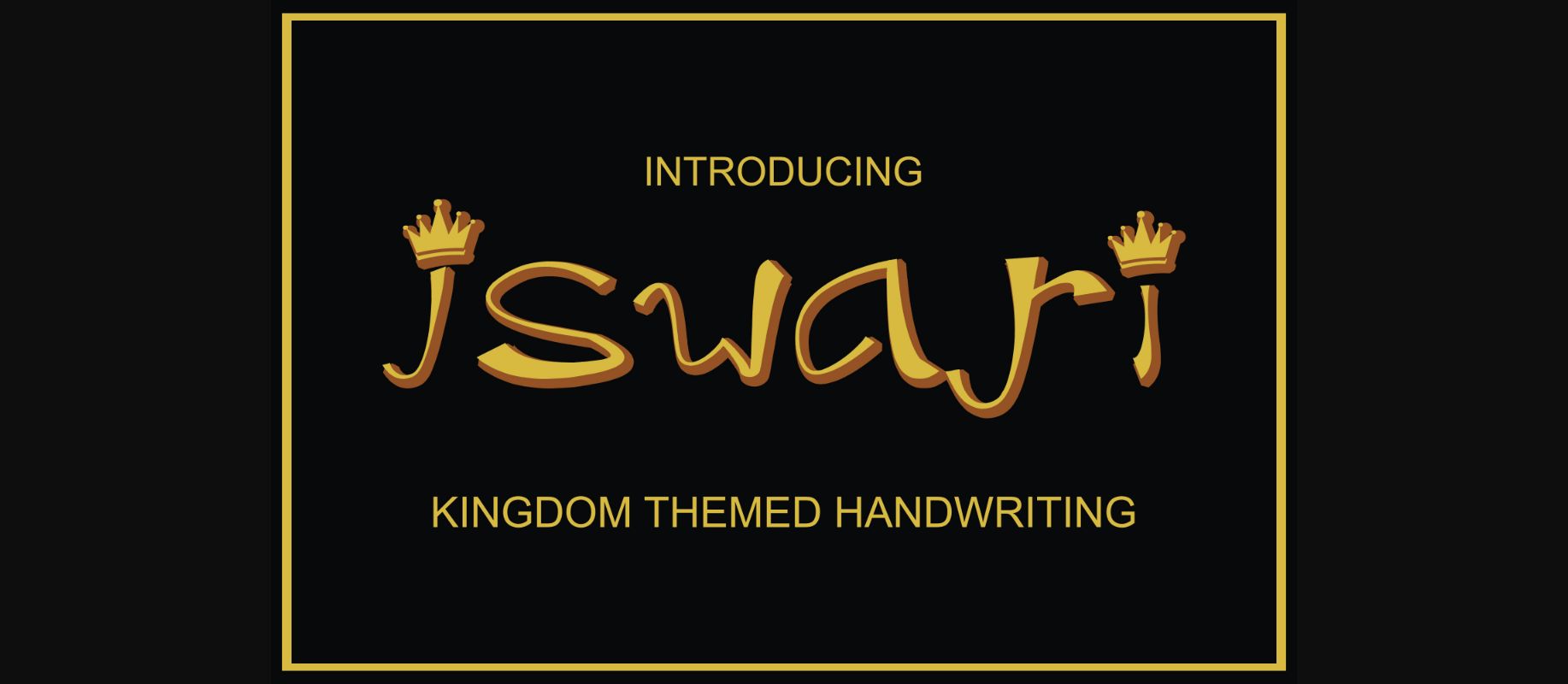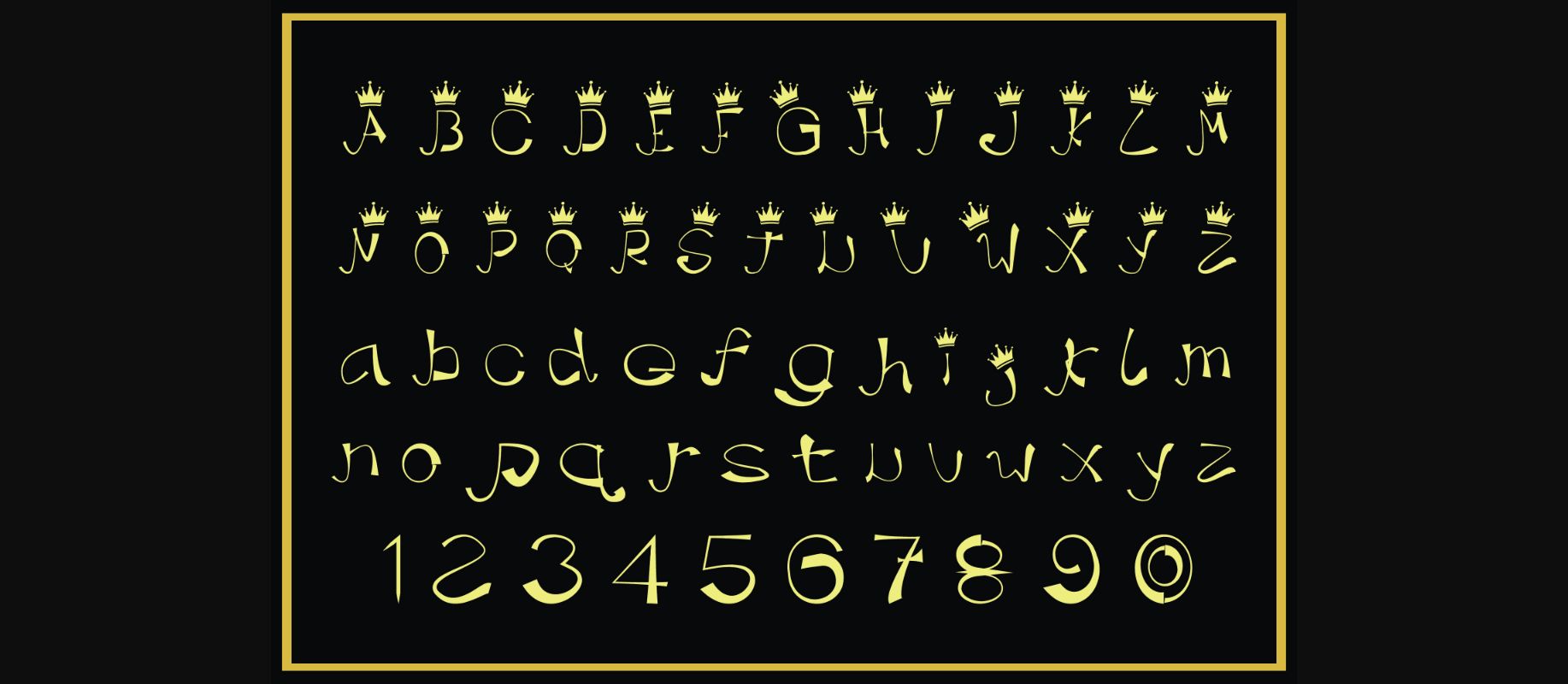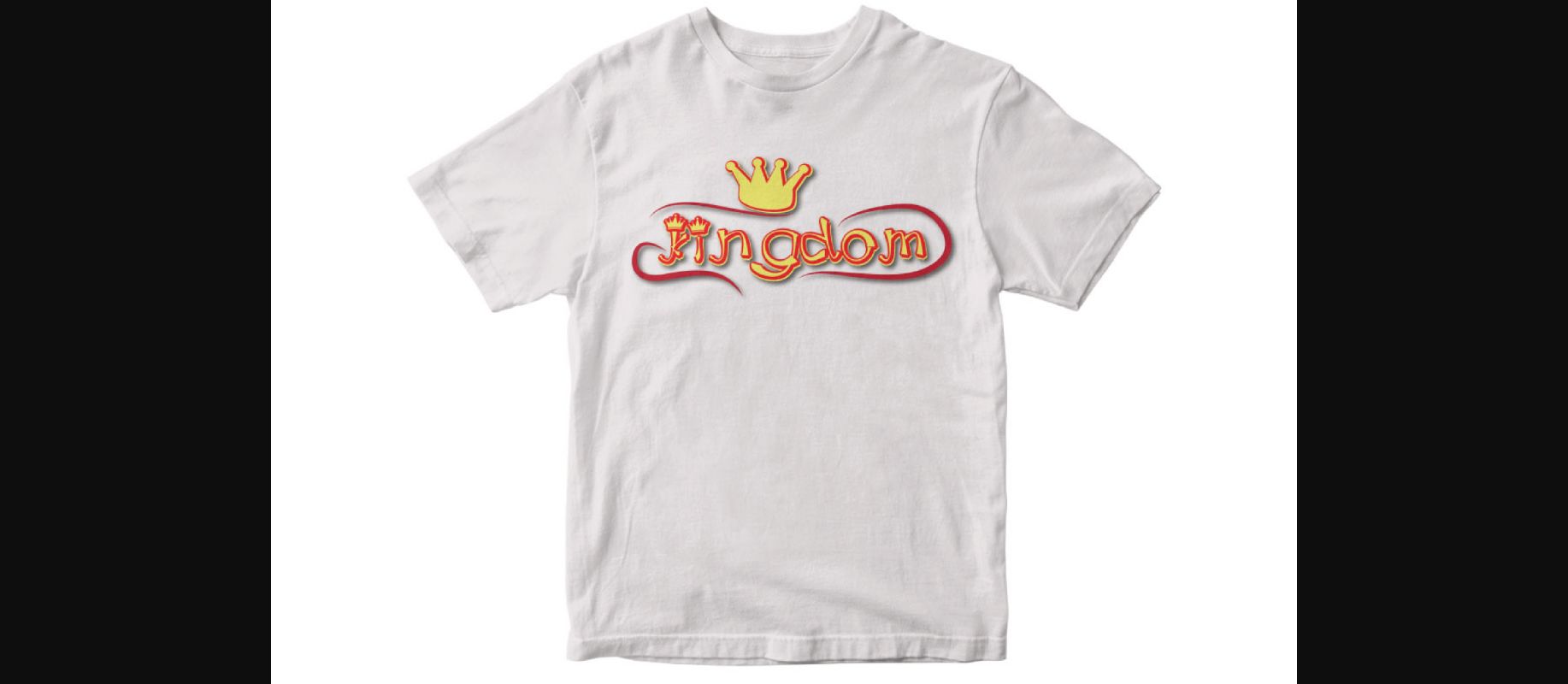
About Iswari Font
Iswari is a quirky and incredibly unique decorative font, featuring a crown ornament. This interesting and distinct font looks adept on a wide variety of contexts!